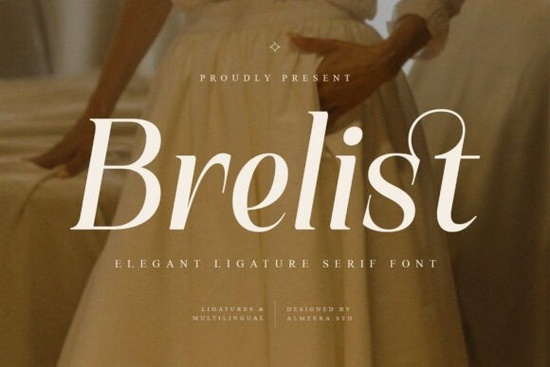
If you’re looking for a serif font that feels both modern and timeless, Brelist Font might be exactly what your next project needs. It’s not flashy or overly ornate instead, it leans into graceful curves, subtle contrast, and thoughtful ligatures that give your text a polished rhythm. Whether you’re designing a boutique logo, a wedding invitation, or a premium product label, Brelist adds just enough personality without overwhelming the message.
What makes Brelist especially useful is how naturally it adapts to different contexts. The uppercase and lowercase letters are balanced in weight and spacing, so headlines read cleanly even at large sizes. And because it includes multilingual support and alternate characters, you can use it confidently across global audiences or creative layouts that need a little typographic flair.
What kinds of projects work best with Brelist?
This font shines when used in places where elegance matters think editorial spreads, packaging for luxury goods, or social media graphics that need to feel elevated but not stiff. Small businesses often use fonts like this for branding because they convey professionalism without losing warmth. Crafters and print-on-demand sellers also love it for quote prints, greeting cards, or custom apparel where typography carries the emotional tone.
- Logos & Branding – Its high-contrast serifs make letterforms distinct at small sizes.
- Editorial Design – Magazine spreads or blog headers benefit from its rhythmic flow.
- Invitations & Stationery – Wedding suites or event posters feel refined without being fussy.
- Packaging & Labels – Especially effective for beauty, food, or artisanal products.
If you’ve enjoyed working with fonts like Fresh Mango or Orvella, you’ll likely appreciate how Brelist balances structure with expressiveness. It doesn’t try to do everything and that’s why it works so well where it’s meant to.
How does Brelist compare to other editorial serifs?
Fonts like The Avenue or Vogue lean into bold, dramatic strokes perfect for fashion or high-energy layouts. Brelist, by contrast, is quieter. It doesn’t shout; it whispers with confidence. That makes it ideal for brands or designers who want sophistication without sacrificing readability.
And if you’ve ever used Healing for wellness or spiritual projects, you know how important gentle curves and open spacing can be. Brelist shares that same sense of calm intentionality, though it’s built for broader commercial use rather than niche themes.
Any tips for getting the most out of this font?
First, don’t be afraid to play with size. Brelist’s ligatures and fine details really come alive in larger formats think website hero text, poster titles, or product packaging. At smaller sizes, stick to simpler words or avoid overly tight tracking to keep things legible.
Second, pair it thoughtfully. Because it’s a serif with strong character, it pairs beautifully with clean sans-serifs like Montserrat or Lato. Avoid pairing it with another decorative font let Brelist be the star.
Third, explore the alternates. OpenType features mean you can swap in stylistic variants for certain letters to add uniqueness to logos or headlines. Not every design tool supports this automatically, so check your software settings if you’re not seeing them right away.
Fonts like this don’t need hype. They just need the right moment a quiet headline, a thoughtful brand mark, a cover that lingers in the mind. If that’s the kind of impression you’re aiming for, give Brelist a try. Sometimes, the most memorable designs come from typefaces that know exactly what they’re meant to do and do it well.